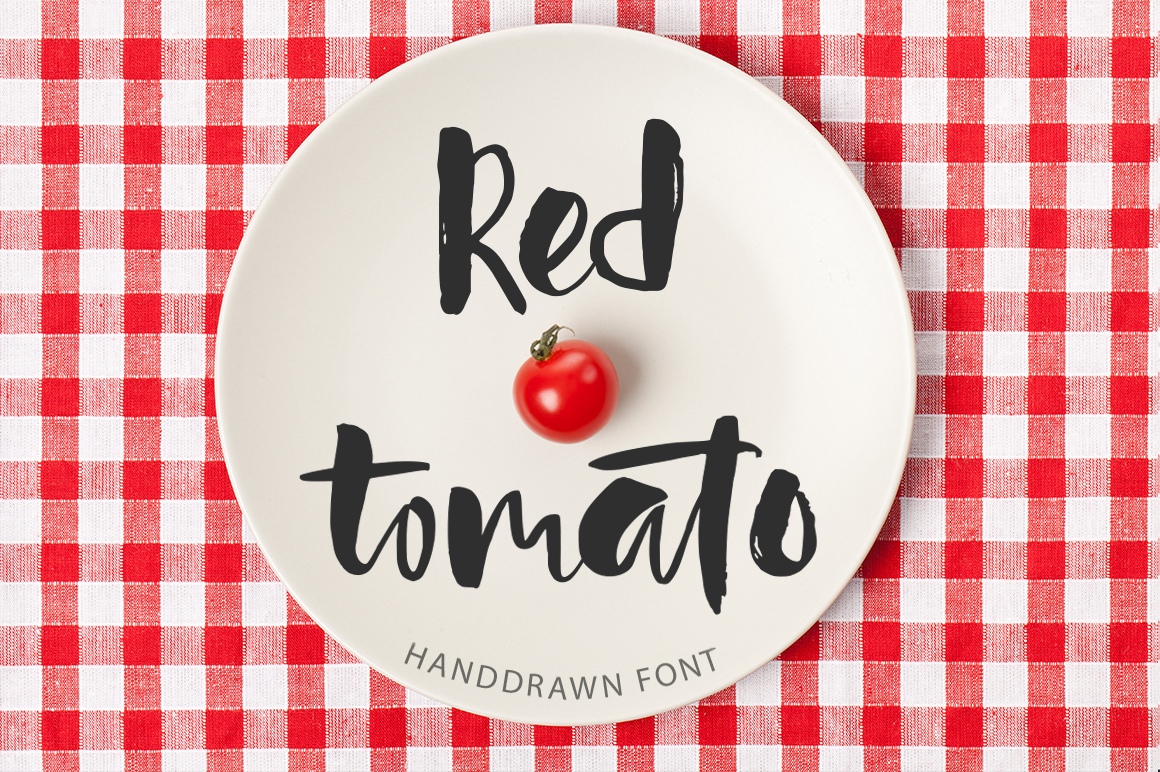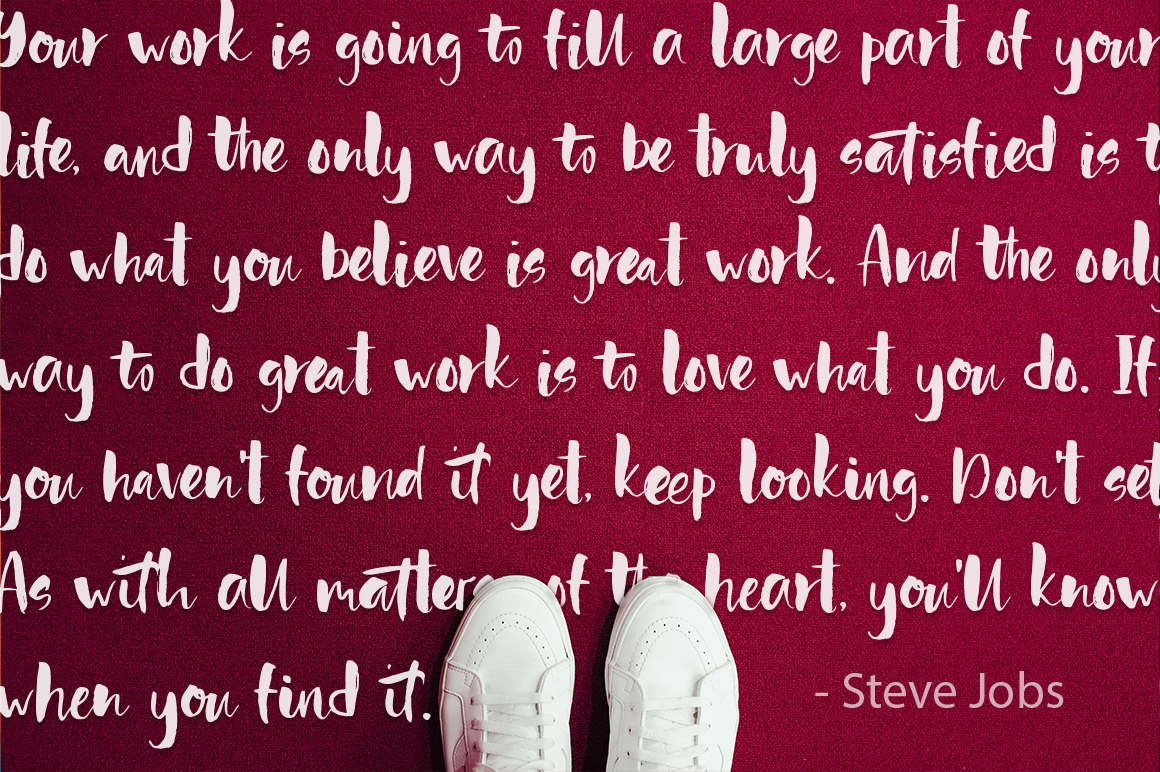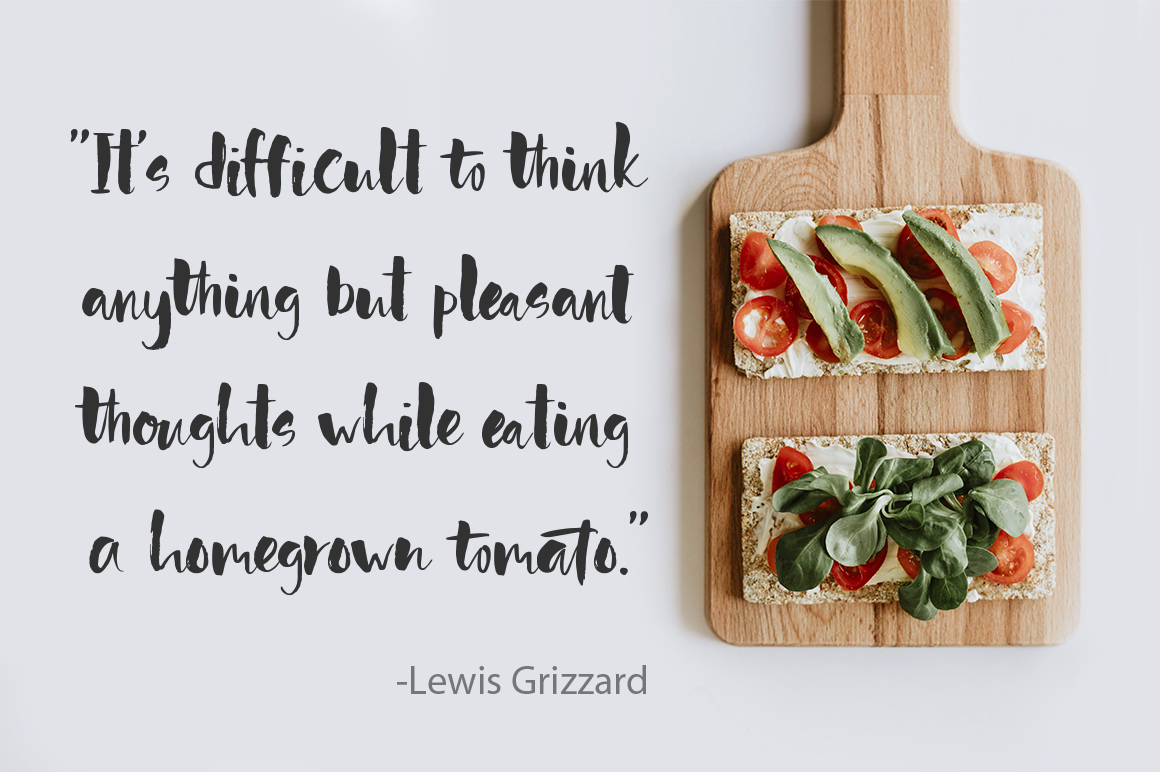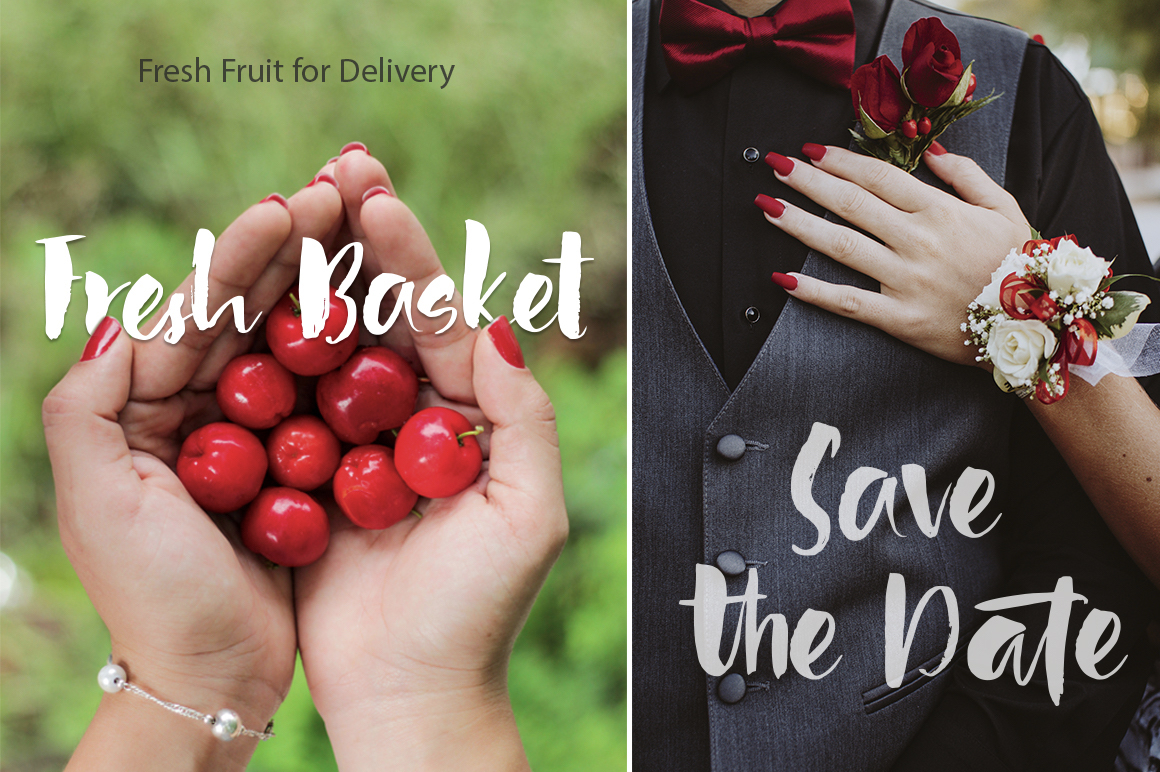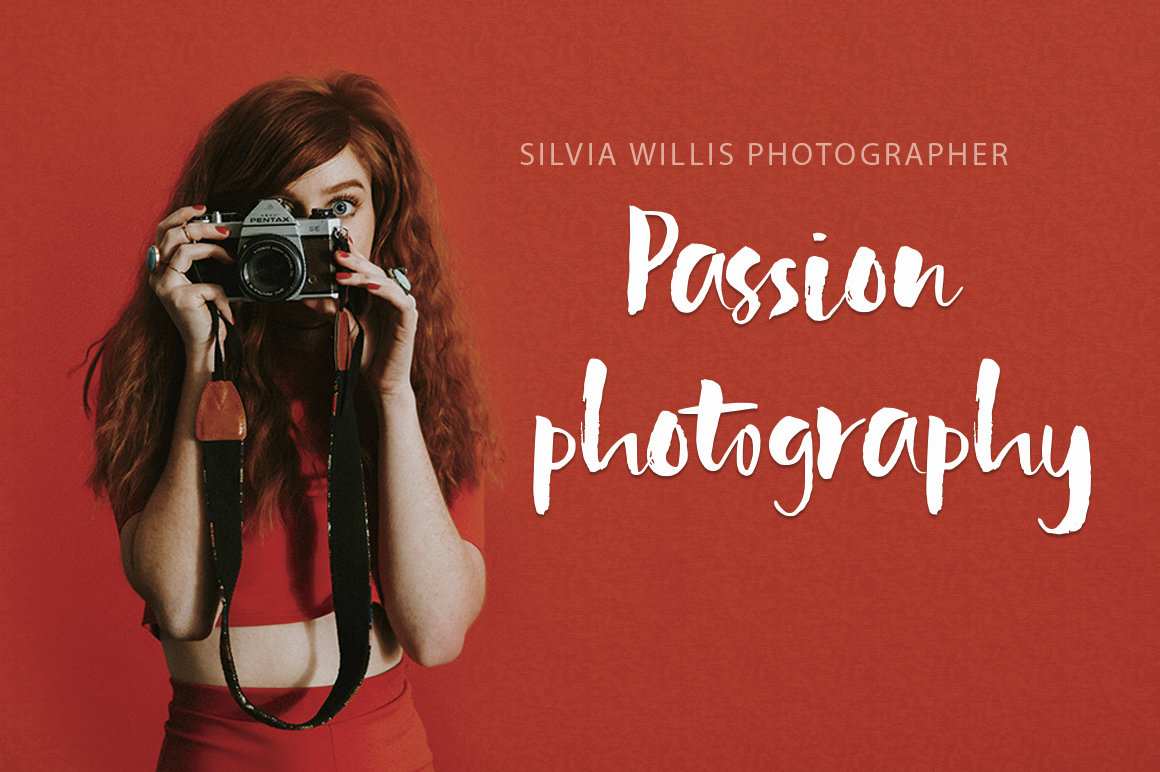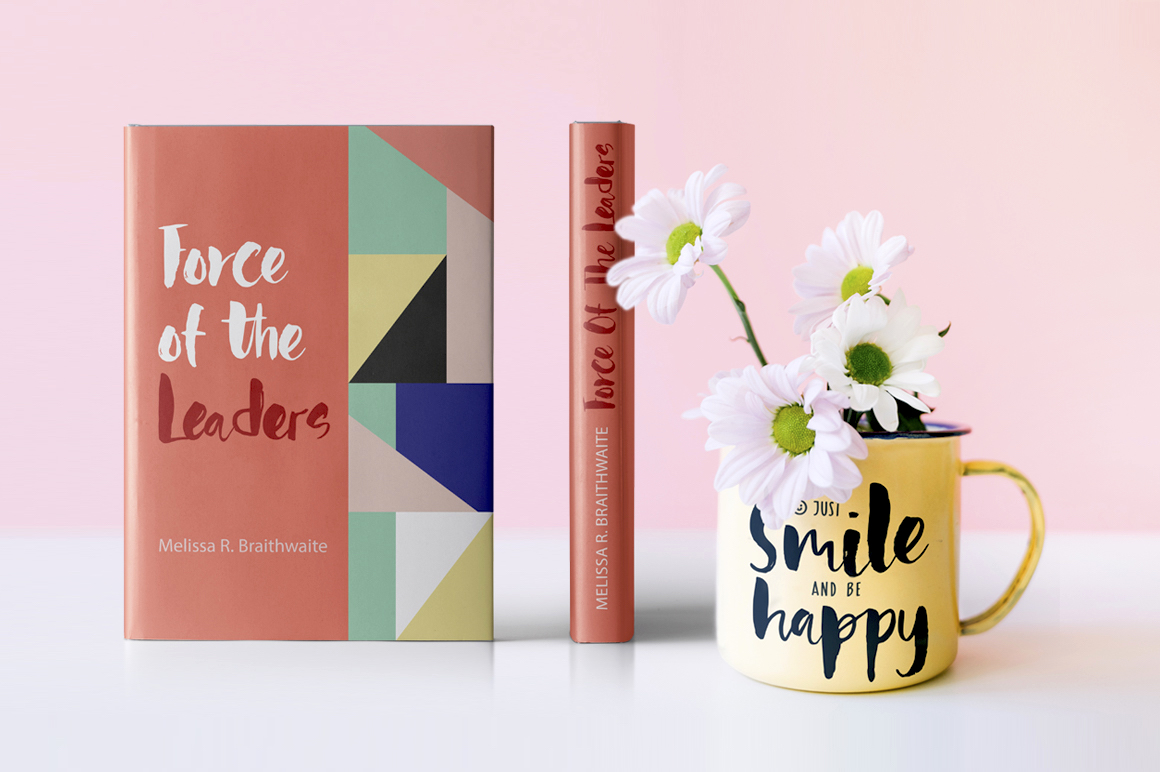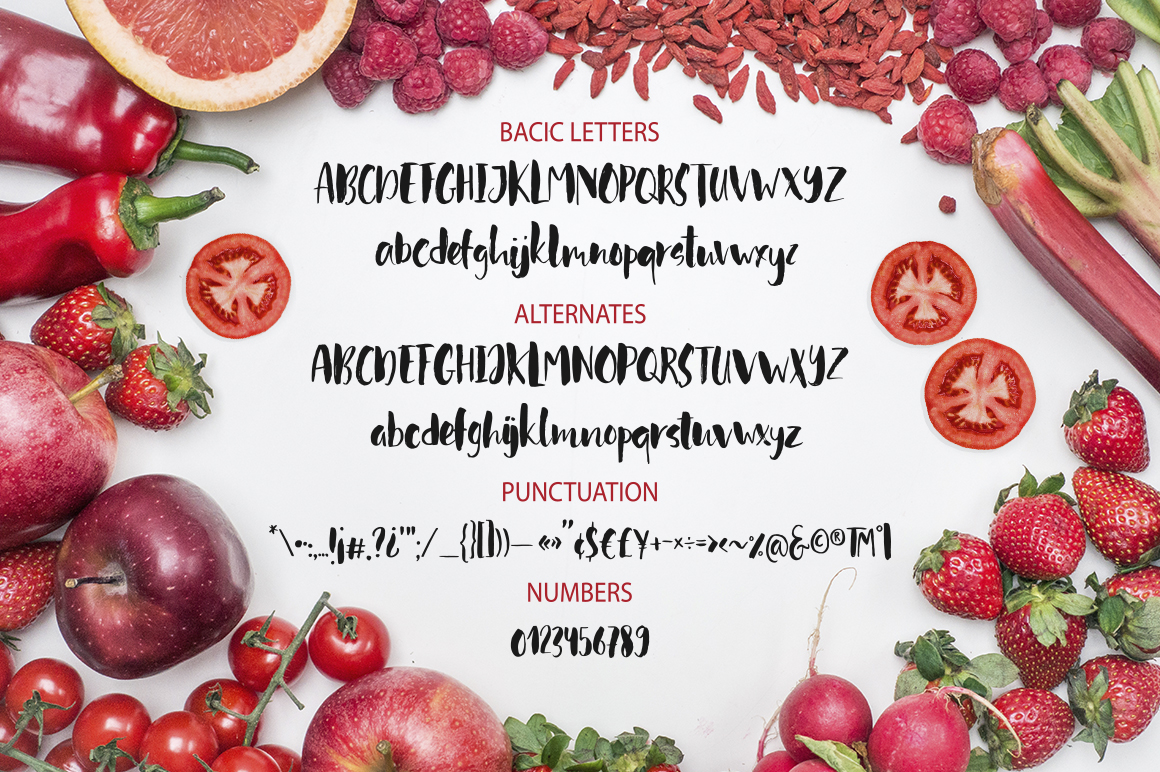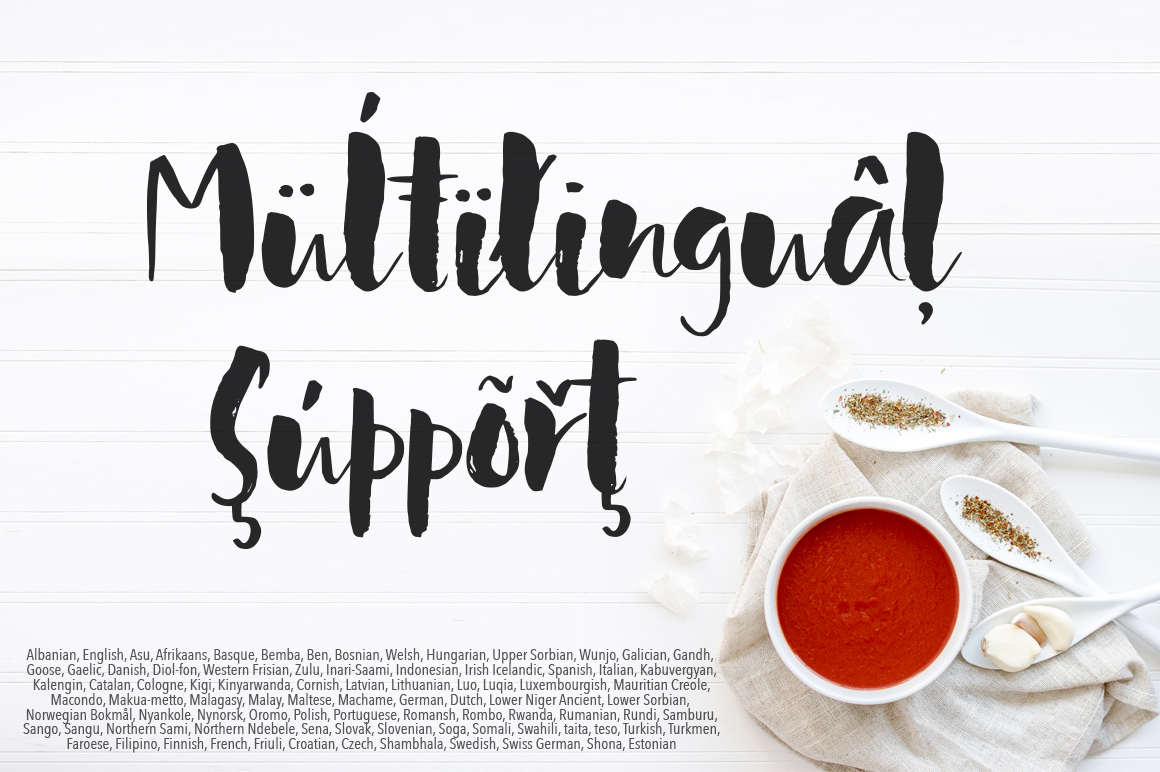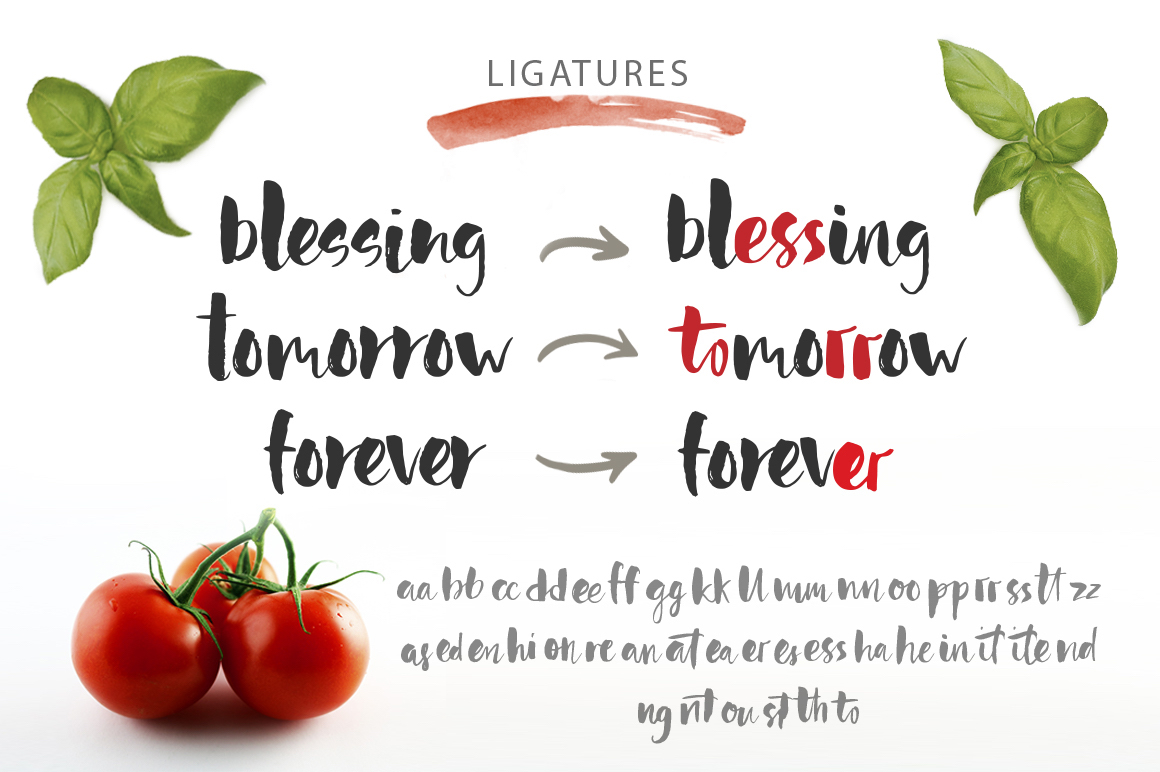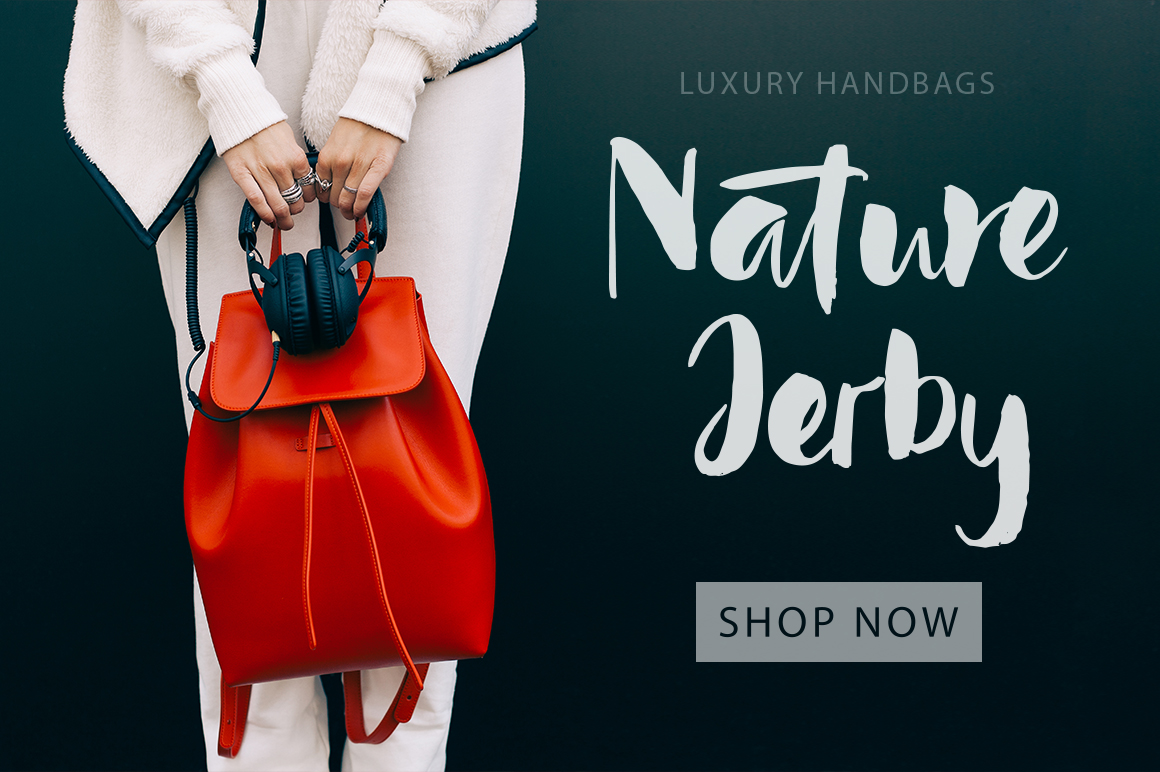
Red Tomato Font
About Red Tomato Font
Red Tomato is a playful hand drawn script font created with brush and ink. It has a dancing baseline and beautiful hand-drawn texture. It’s a playful font that pays homage to the beauty of summer and gardening.